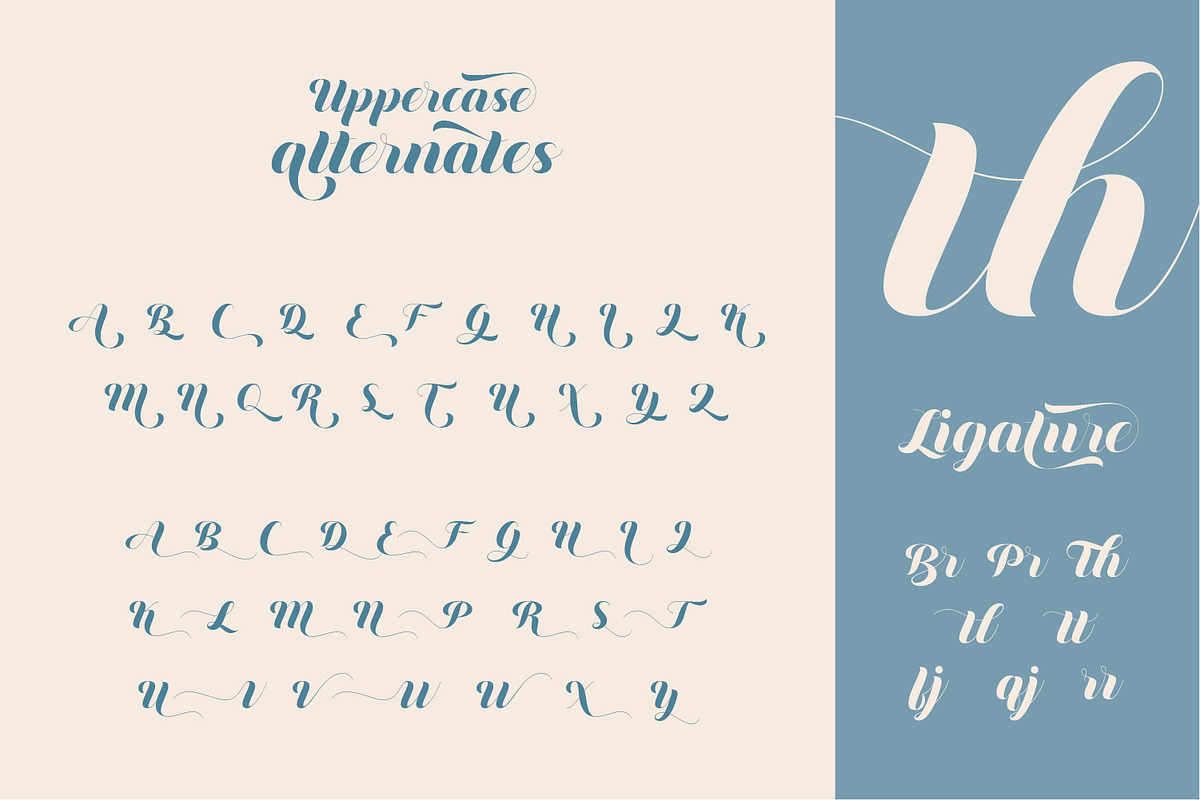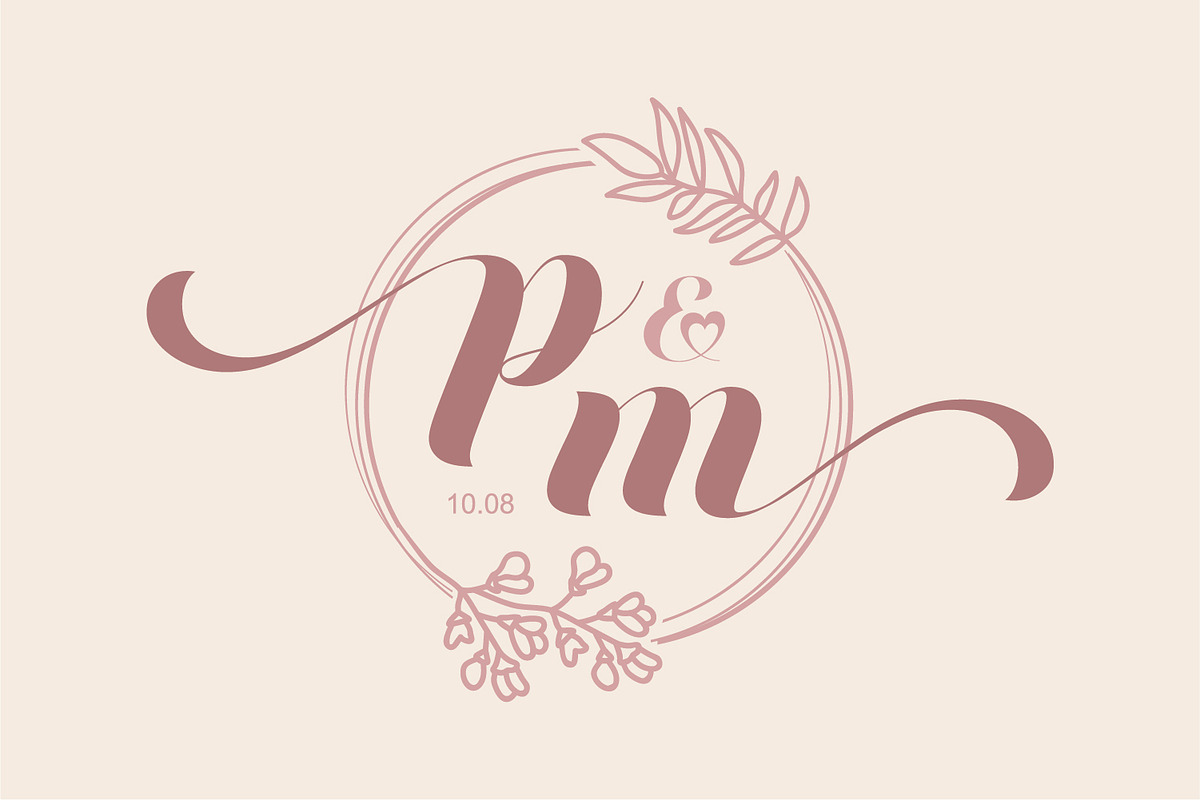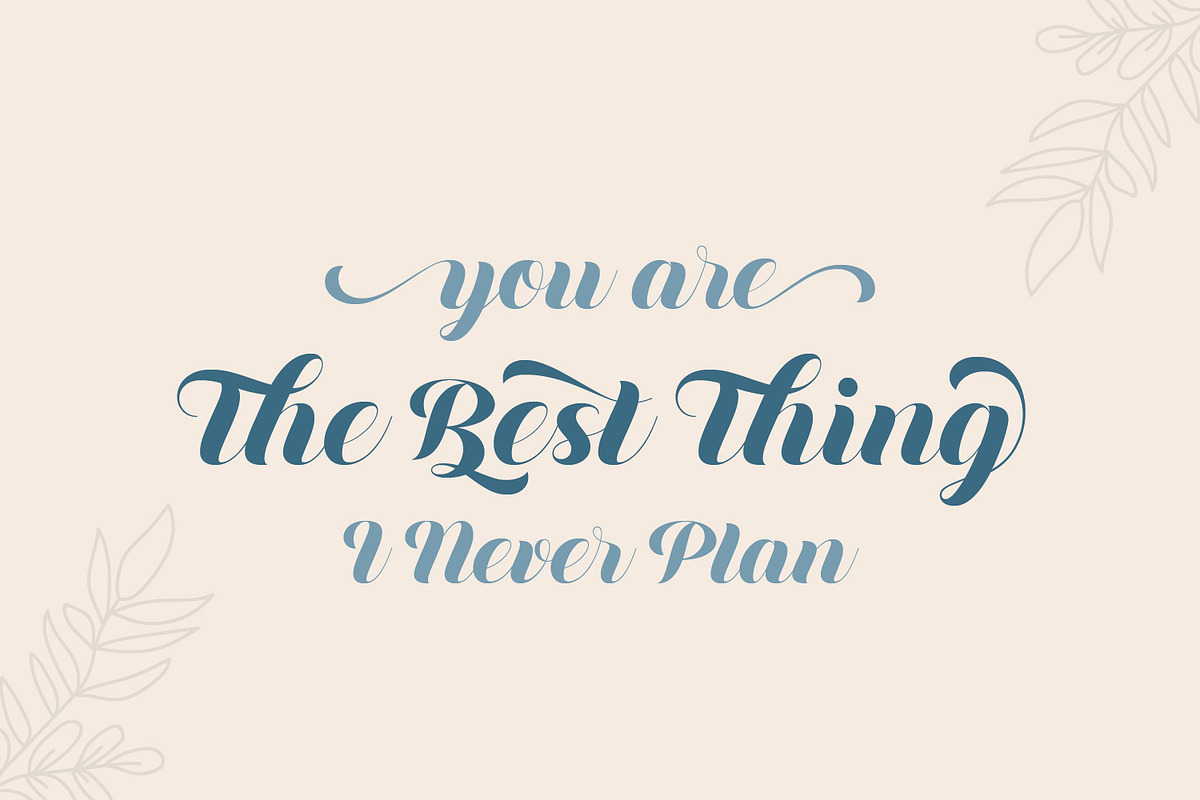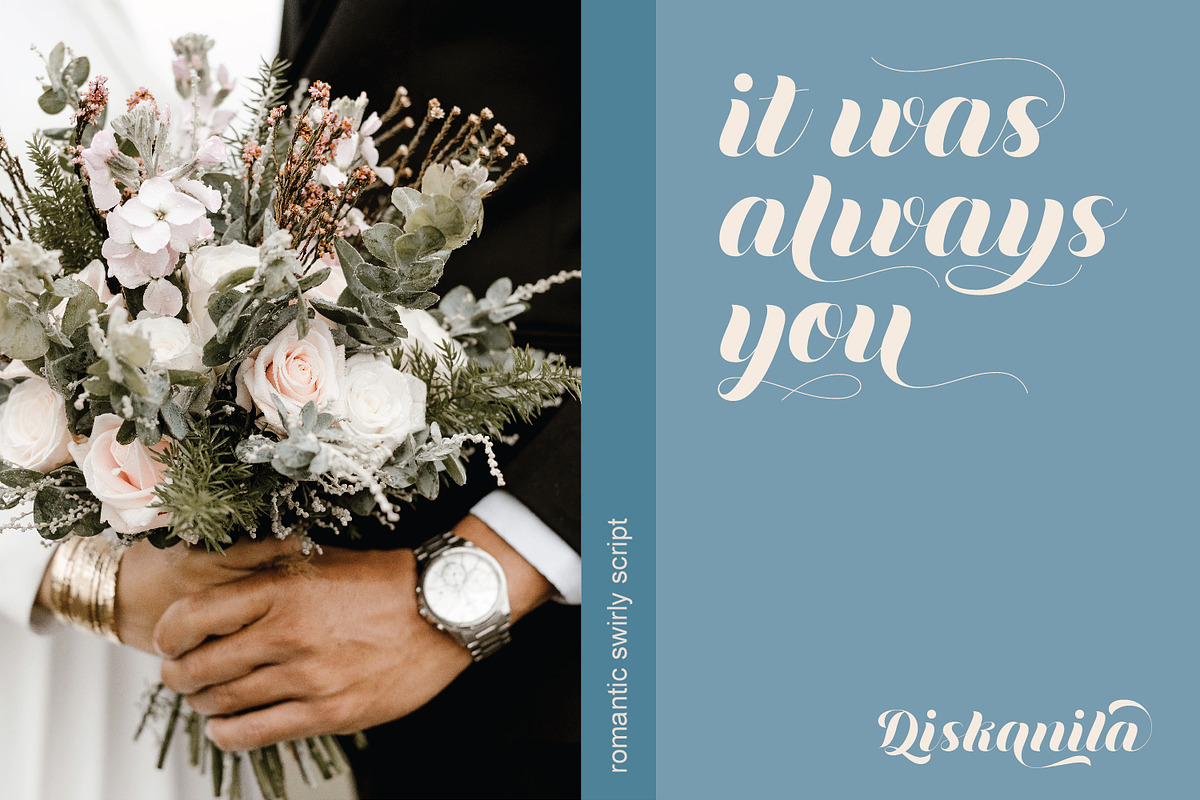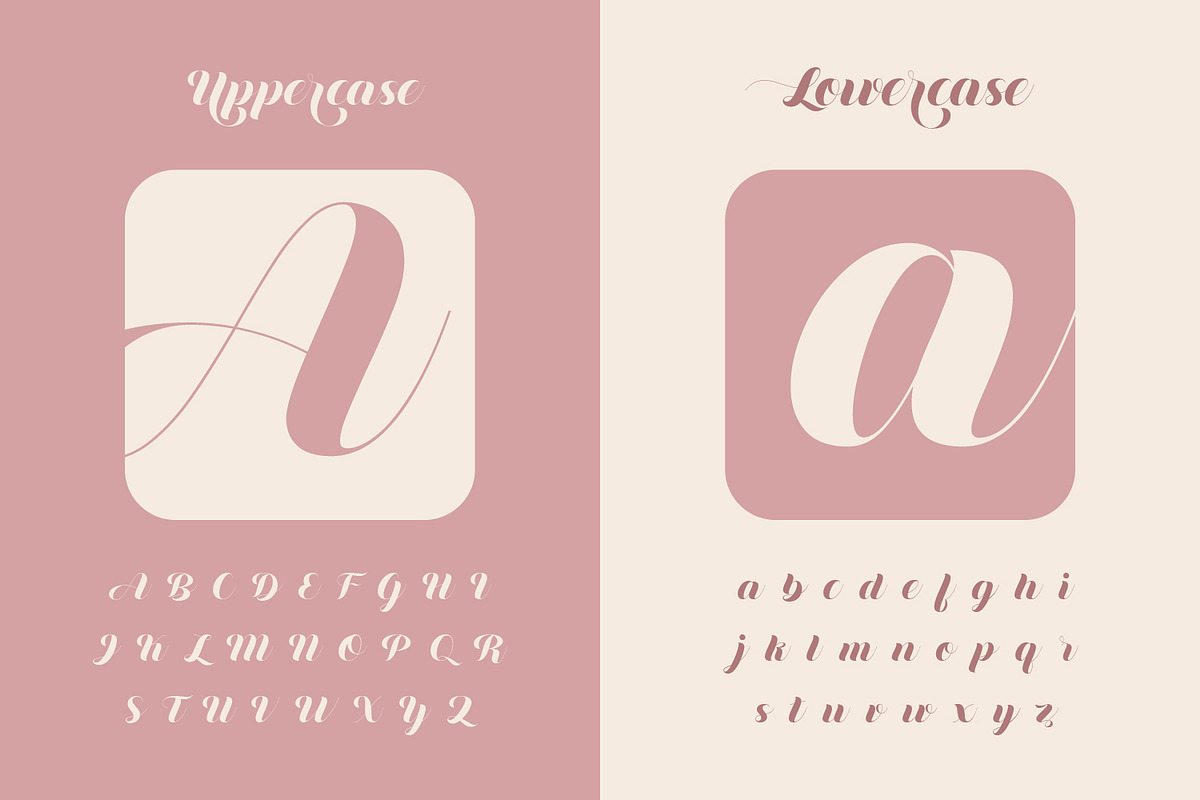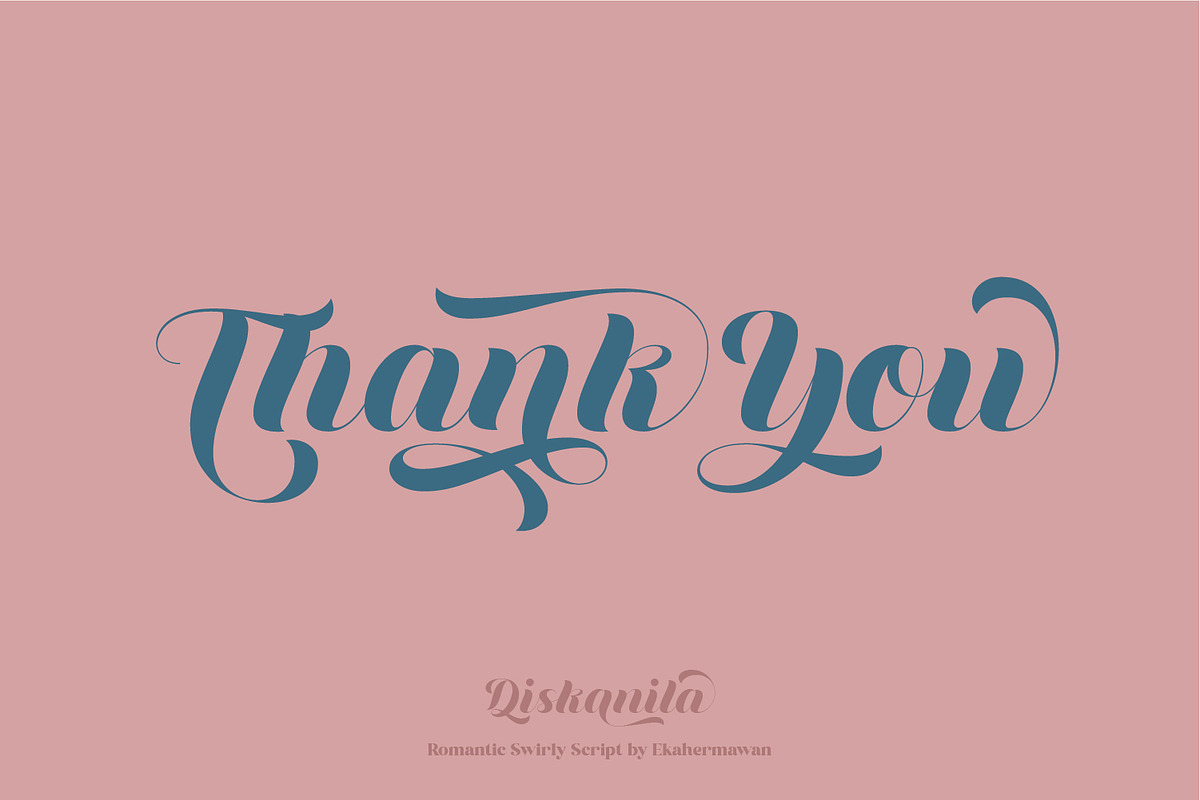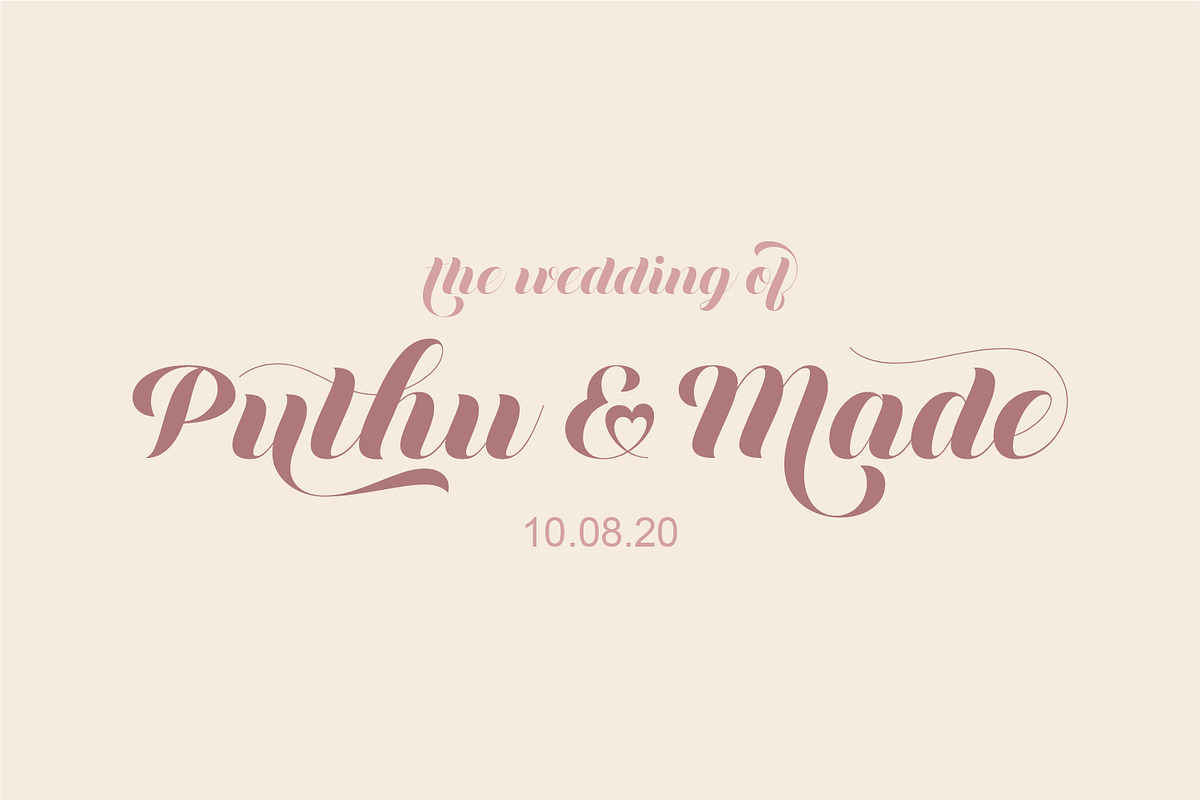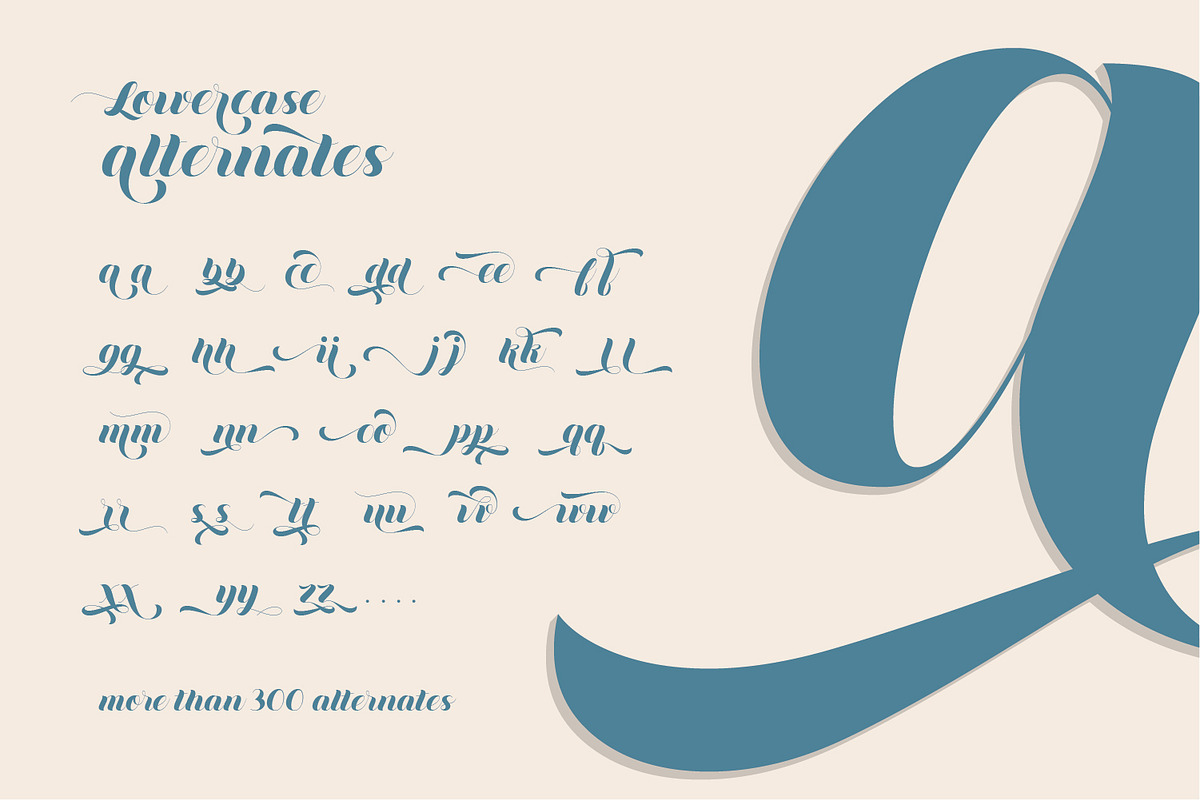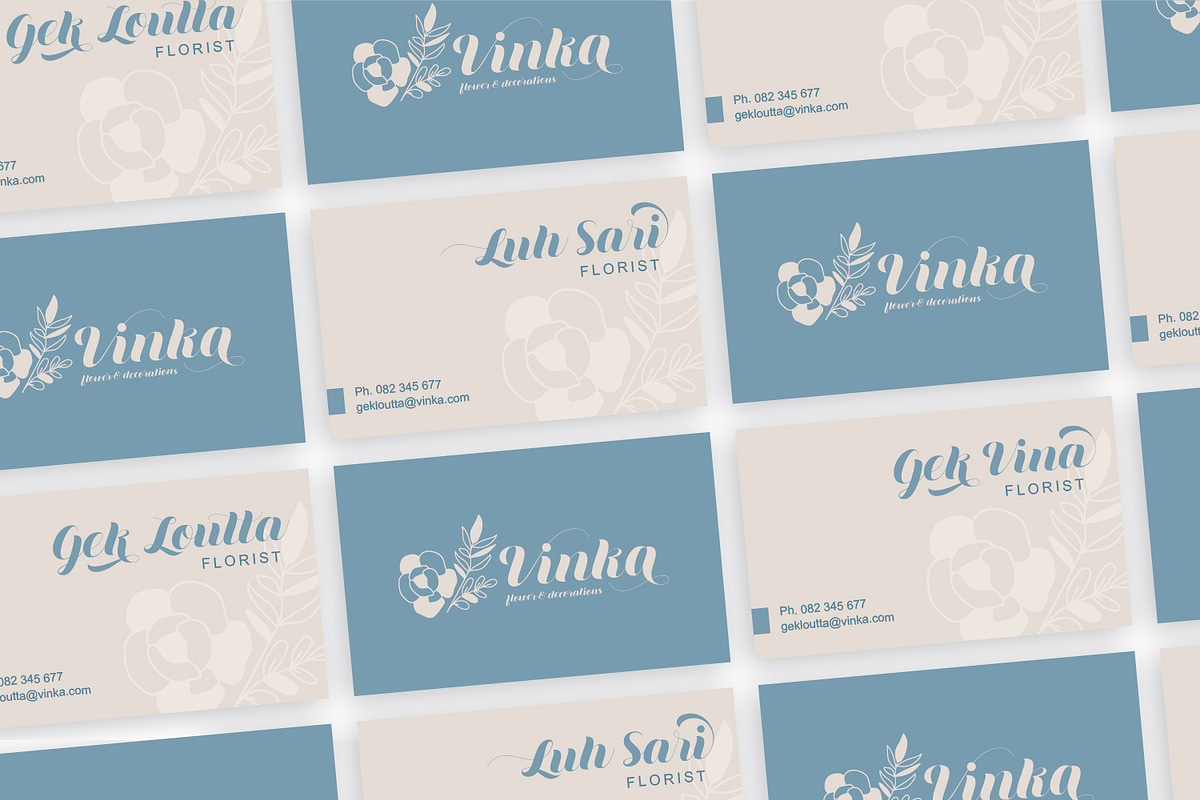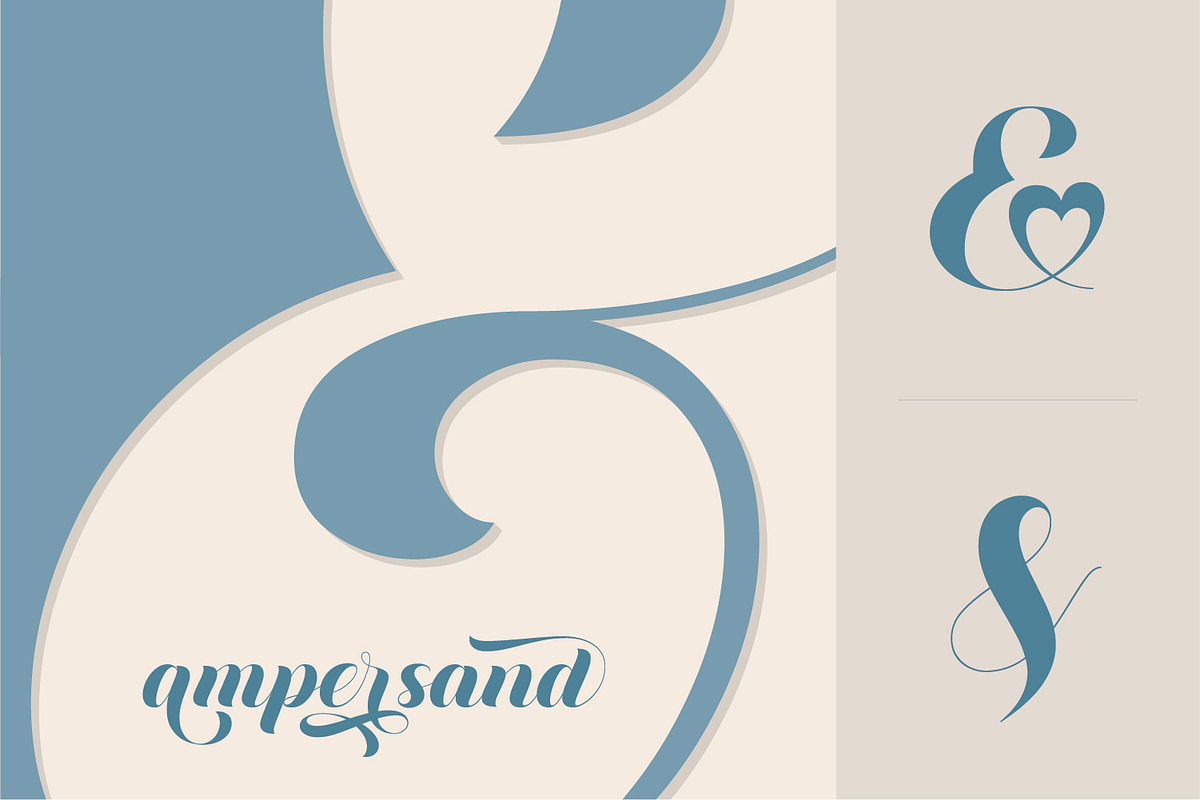
Diskanila - Romantic Script Font
Diskanila is a romantic swirly script font. This beautiful script including with more than 300+ alternative characters (PUA Encoded) that gives you a wide variety of romantic typography design results. Diskanila comes with bold and light swirly alternatives to make your many different projects such as logo, feminine branding, poster, magazine, label, merchandise, presentation, advertising, and invitation card more beautiful !
- Playful to use (with ligatures options and alternatives options)